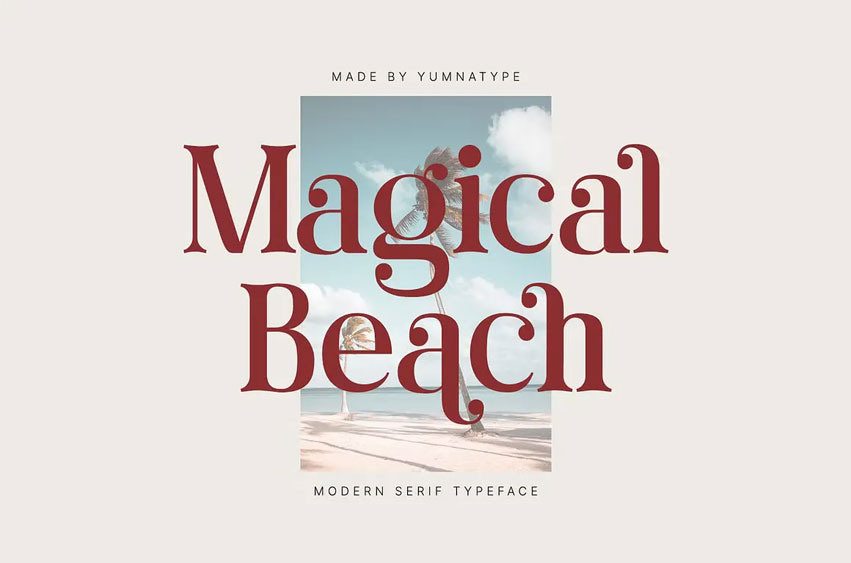
Magical Beach Font
Magical Beach Font is an enthralling serif font that transports you to a contemporary paradise’s spectacular beaches. Drawing inspiration from natural coastlines and classic serif typefaces, Magical Beach strikes the ideal balance between innovation and tradition with every letter carefully crafted with clear lines and delicate curves to exude class and elegance.
Magical Beach’s modern twist makes this traditional serif font stand out, featuring clean and sleek letters that give an edgy and contemporary appearance. Additionally, you’ll enjoy all of its features!